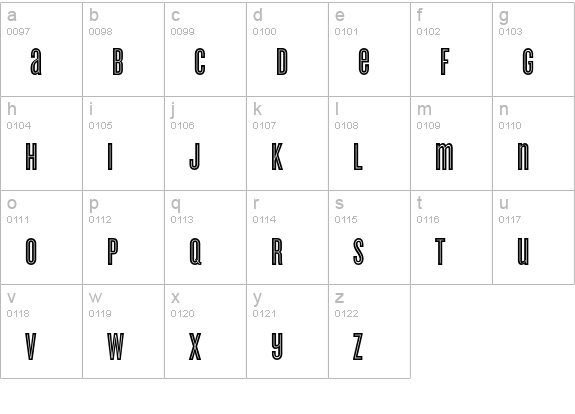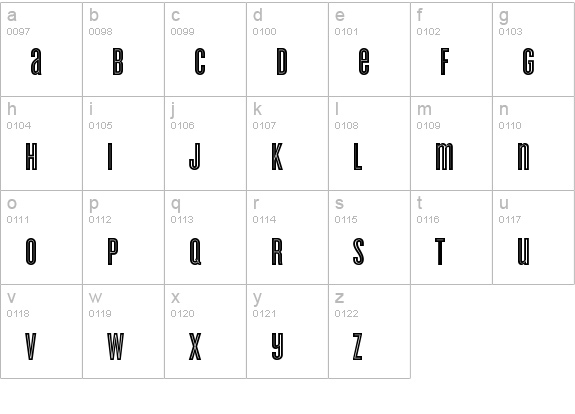
Cyclone Shaded Font Details
Cyclone Shaded font is a bold and dynamic typeface that exudes energy and strength. Its unique design features sharp edges and intricate shading, giving it a modern and edgy look. Whether used for headlines, posters, or branding projects, this font is sure to make a statement and capture attention. The best part? Cyclone Shaded font is available for free download at FontsMarket.com. Embrace the power of this striking typeface and elevate your designs with its bold presence. Get your hands on Cyclone Shaded font today and unleash your creativity with this versatile and impactful font.